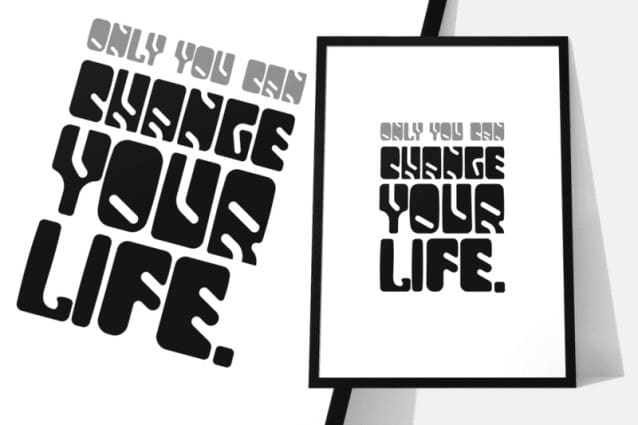
Ashoka Display Font
Ashoka Display Font is a classic display font that’s perfect for businesses, modern brands, and anyone looking to create a timeless and elegant message. Its sans-serif style ensures it’s easy to read, while its unique vintage design gives it a sense of old-world charm and sophistication.
Whether you’re creating a movie poster, a YouTube video, or just want to add some style to your Instagram posts, Ashoka Display is the perfect choice. Its retro and vintage design is sure to grab attention and create a lasting impression.
The shape of this font is truly head-turning and will make your message stand out in a sea of boring fonts. Its modern style and classic design make it the perfect choice for anyone looking to create a convincing and eye-catching look.
Don’t settle for a plain and uninspired font that doesn’t capture your brand’s essence. Choose Ashoka Display and let us help you create an unforgettable message that will attract new customers and keep them coming back for more.
Add a touch of nostalgia to your brand with Ashoka Display – the classic display font that’s perfect for creating a vintage and sophisticated look that’s sure to impress.